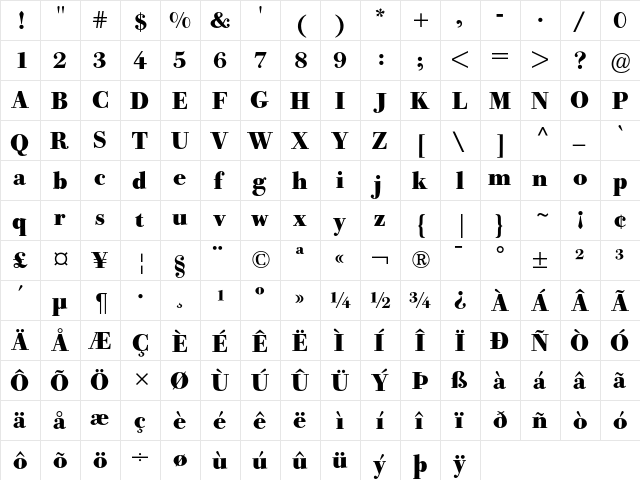
Bodoni Old Face BE Bold
Design Context for Bodoni Old Face BE Typeface
Bodoni Old Face BE offers clean, dependable letterforms without strong stylistic allegiance, making it a practical choice for designers who need flexibility. The heavy weight commands attention and anchors typographic hierarchies.